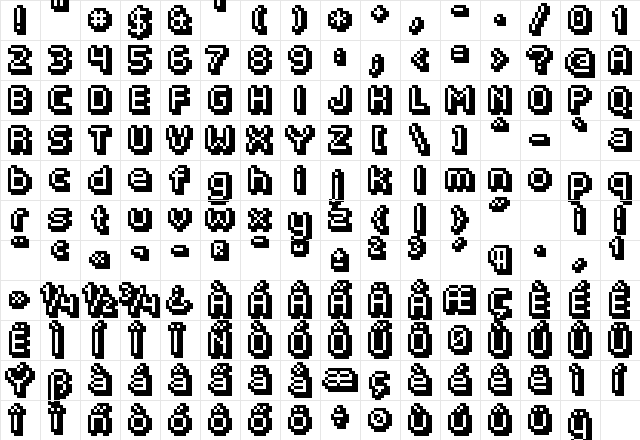
Fipps Regular
Design Context for Fipps Typeface
Fipps is a composed and adaptable typeface that performs quietly and consistently across a wide range of design contexts.